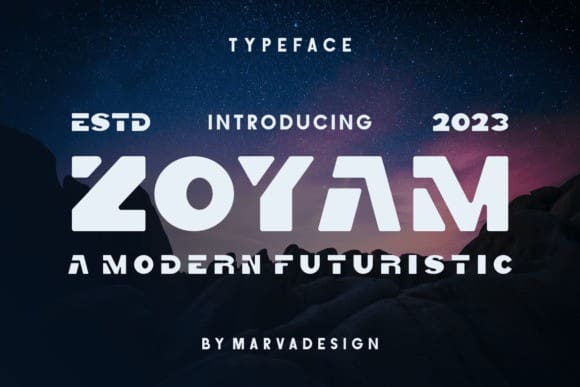
Zoyam Futuristic Font
Zoyam Futuristic Font is an incredibly cool and unique display font. It has a modern yet whimsical style and it will undoubtedly immerse your designs into a magical world.